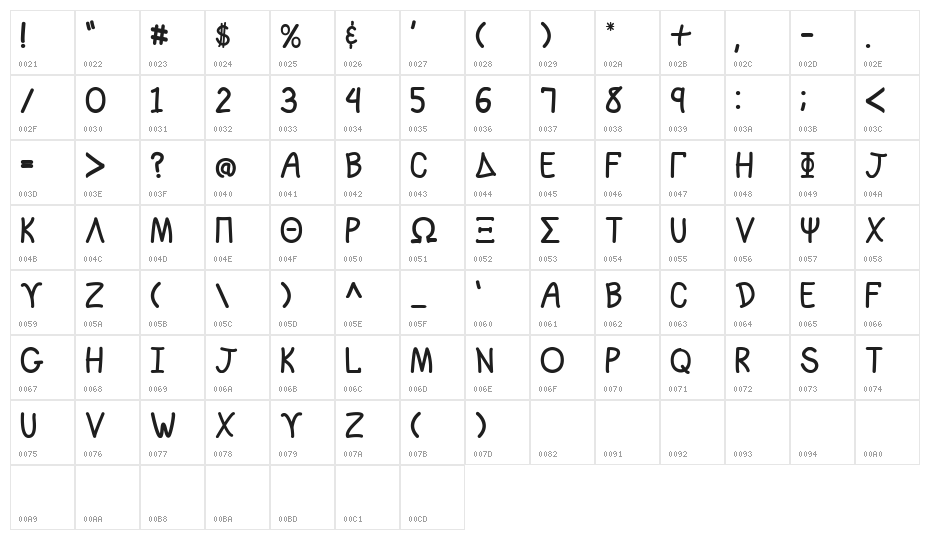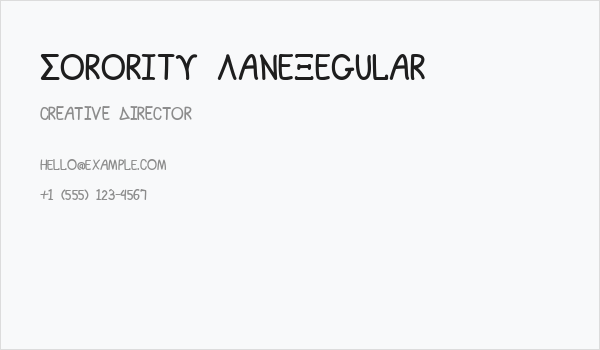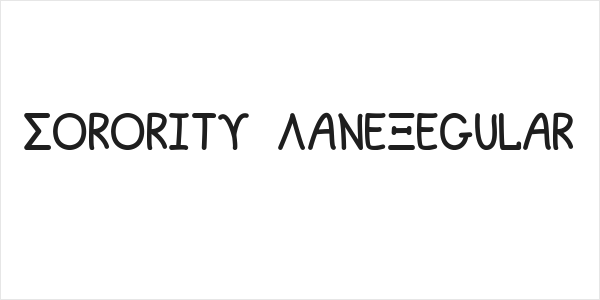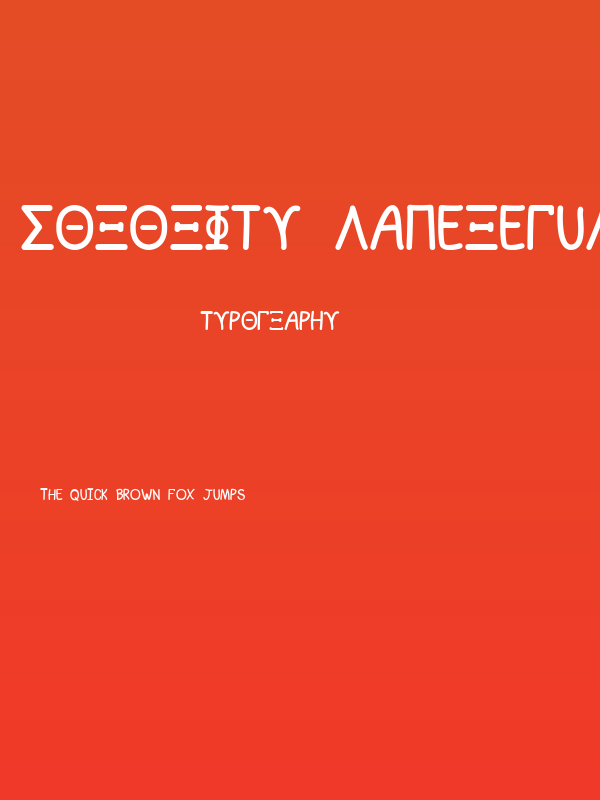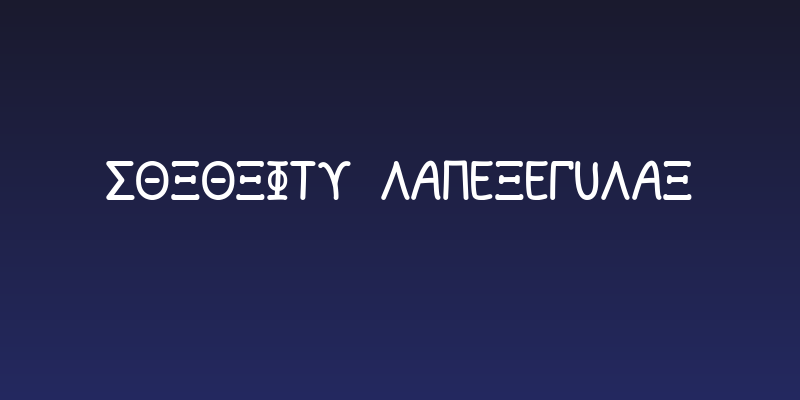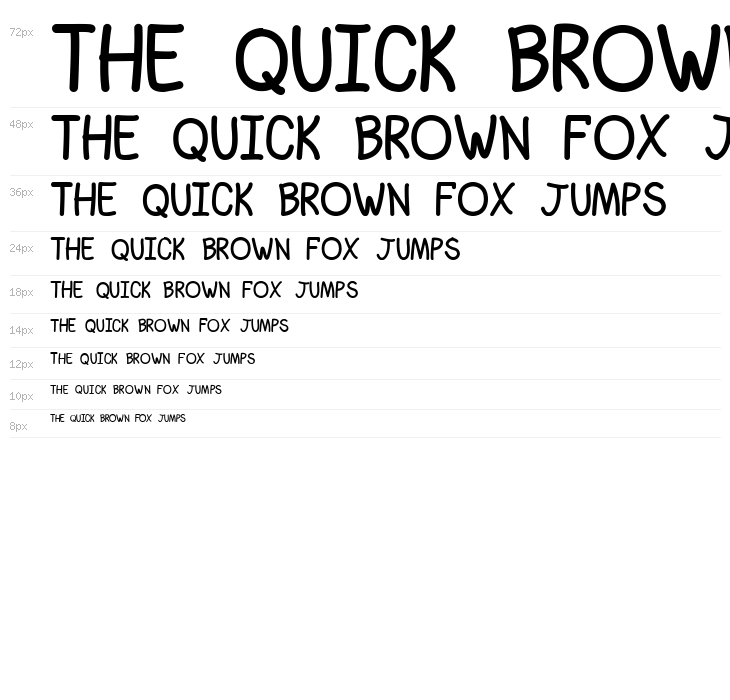
Sorority LaneRegular Font
Sorority LaneRegular Description
This playful and informal font features a handwritten style with a touch of whimsy. The characters are rounded and slightly irregular, giving it a casual and friendly appearance. The uppercase letters are bold and prominent, while the lowercase letters maintain a consistent flow with a slightly smaller size. The numbers are clear and easy to read, matching the overall style of the alphabet. Special characters are included, maintaining the same playful aesthetic. This font is ideal for projects that require a personal touch or a fun, approachable vibe.
| Use Case | Headlines, Informal text, Branding |
| Proposed Projects | Ideal for greeting cards, children's books, casual invitations, and playful branding. |